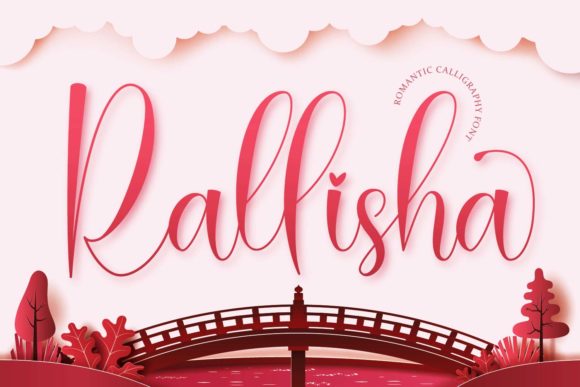
Prepare to be mesmerized by Rallisha Font, the epitome of elegance and charm! This enchanting script font, designed by the renowned Naharstd, will cast a spell on your designs, leaving a lasting impression on all who behold it.
At its heart, Rallisha embodies a delicate balance of grace and sophistication. Its flowing lines dance across the page, creating a visual symphony that captivates the senses. The varying baseline adds an element of intrigue, allowing your words to take on a life of their own.
But Rallisha's beauty is more than skin-deep. It's a font that empowers you to express your creativity without limits. The PUA encoding unlocks a world of possibilities, granting you effortless access to a treasure trove of glyphs and swashes. Unleash your imagination and let Rallisha guide you towards design brilliance.
Picture this: your e-signature transformed into a work of art, radiating confidence and leaving a lasting impression on every recipient. Rallisha's allure extends far beyond the digital realm, gracing invitations, branding, and any project that calls for a touch of timeless elegance.
Its versatility knows no bounds. Whether you're crafting heartfelt love letters, designing captivating social media posts, or creating stunning logos, Rallisha will seamlessly adapt to your vision, enhancing your words with its captivating presence.
Fall head over heels in love with Rallisha's captivating style. Let it ignite your creativity and elevate your designs to new heights. Embrace the power of this extraordinary font and watch as your words dance across the page, leaving an unforgettable mark on the world.